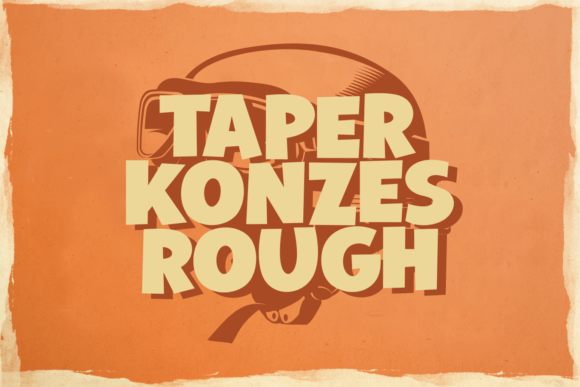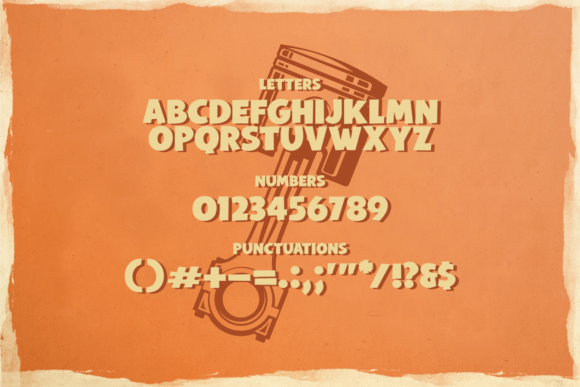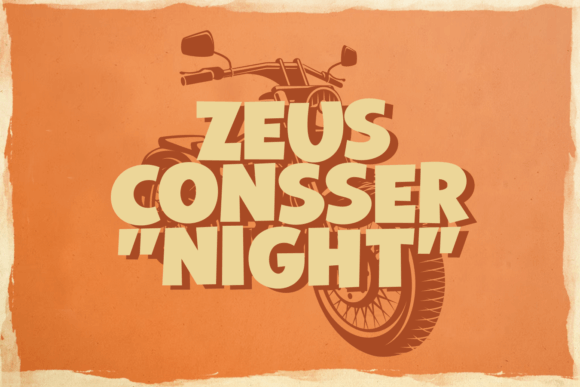
Discover the Timeless Charm of Chronez Font: Elevate Your Designs with a Vintage-Modern Twist
In the realm of typography, fonts play a pivotal role in shaping the visual identity of a design. Among the myriad of fonts available, Chronez stands out with its distinctive vintage flair and modern elegance. This unique font is designed to captivate audiences with its strong all-caps structure, making it an excellent choice for designers and crafters looking to add a touch of sophistication and dynamism to their work.
The Essence of Chronez Font
Chronez is not just another font; it’s a blend of old-school charm and contemporary style. Inspired by traditional typography, Chronez brings back the nostalgia of vintage fonts but with a fresh and modern spin. Its design ensures that it stands out in any medium, whether it’s used for branding, titles, comics, posters, brochures, food packaging, album covers, logos, or any other creative project.
Key Features of Chronez Font
- Unique Vintage Look: Chronez boasts a vintage aesthetic that is reminiscent of classic typography, yet it carries a modernity that makes it relevant for today’s design needs.
- Strong All-Caps: The font’s strong all-caps structure gives it a commanding presence, making it perfect for headlines, titles, and any design element that needs to grab attention.
- Dynamic and Elegant: Despite its vintage inspiration, Chronez exudes a sense of dynamism and elegance, making it versatile for a wide range of applications.
Applications of Chronez Font
The versatility of Chronez font makes it suitable for various design projects. Here are some of the areas where Chronez can make a significant impact:
- Branding: Use Chronez to create memorable brand names or taglines that stand out.
- Titles and Headlines: Its strong presence makes it ideal for titles and headlines in magazines, newspapers, and digital media.
- Comics and Posters: Add a vintage-modern twist to your comic book titles or poster designs.
- Brochures and Flyers: Elevate your marketing materials with a font that captures attention and conveys elegance.
- Food and Beverage Packaging: Use Chronez for labels and packaging to give your products a unique and sophisticated look.
- Album Covers: Give your music projects a distinctive look with Chronez font.
- Logos: Create professional and memorable logos that leave a lasting impression.
Why Choose Chronez Font?
In a world where design trends are constantly evolving, having a font that can adapt and stand the test of time is invaluable. Chronez offers:
- Uniqueness: Stand out from the crowd with a font that is not commonly used.
- Versatility: Suitable for a wide range of projects, from digital to print.
- Timeless Appeal: Combines vintage charm with modern elegance, ensuring your designs are always relevant.
Chronez font is a remarkable addition to any designer’s toolkit. Its unique blend of vintage inspiration and modern elegance, combined with its strong all-caps structure, makes it a versatile and impactful choice for a variety of projects. Whether you’re working on branding, titles, posters, or any other creative endeavor, Chronez is sure to elevate your designs and leave a lasting impression on your audience. Explore the possibilities with Chronez font today and discover a new dimension of typographic excellence.